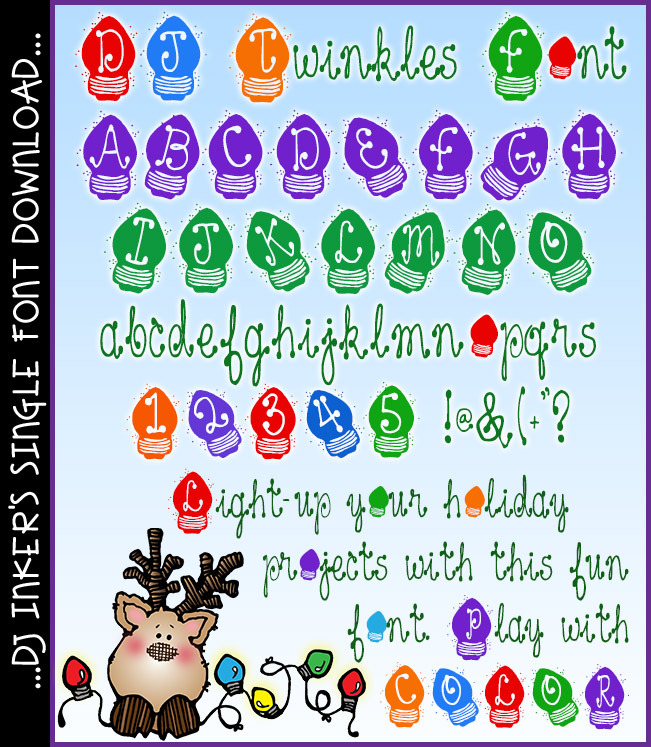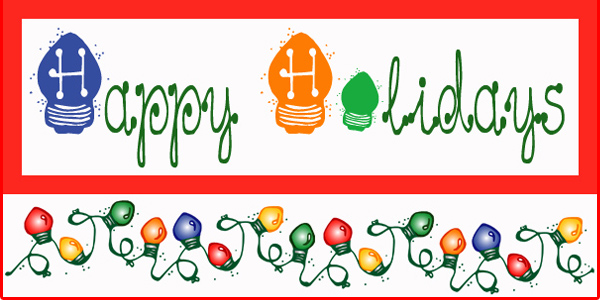
DJ Twinkles Font Download
String up a smile with our DJ Twinkle font. This
whimsical Christmas lettering is sure to light-up your holiday projects
with fun bulb monograms and loopy corded lowercase!
Change the color of each bulb to make a cute rainbow string of lights!
Great for typing-up a smile on holiday cards, gift tags, Christmas programs,
party invites and more.